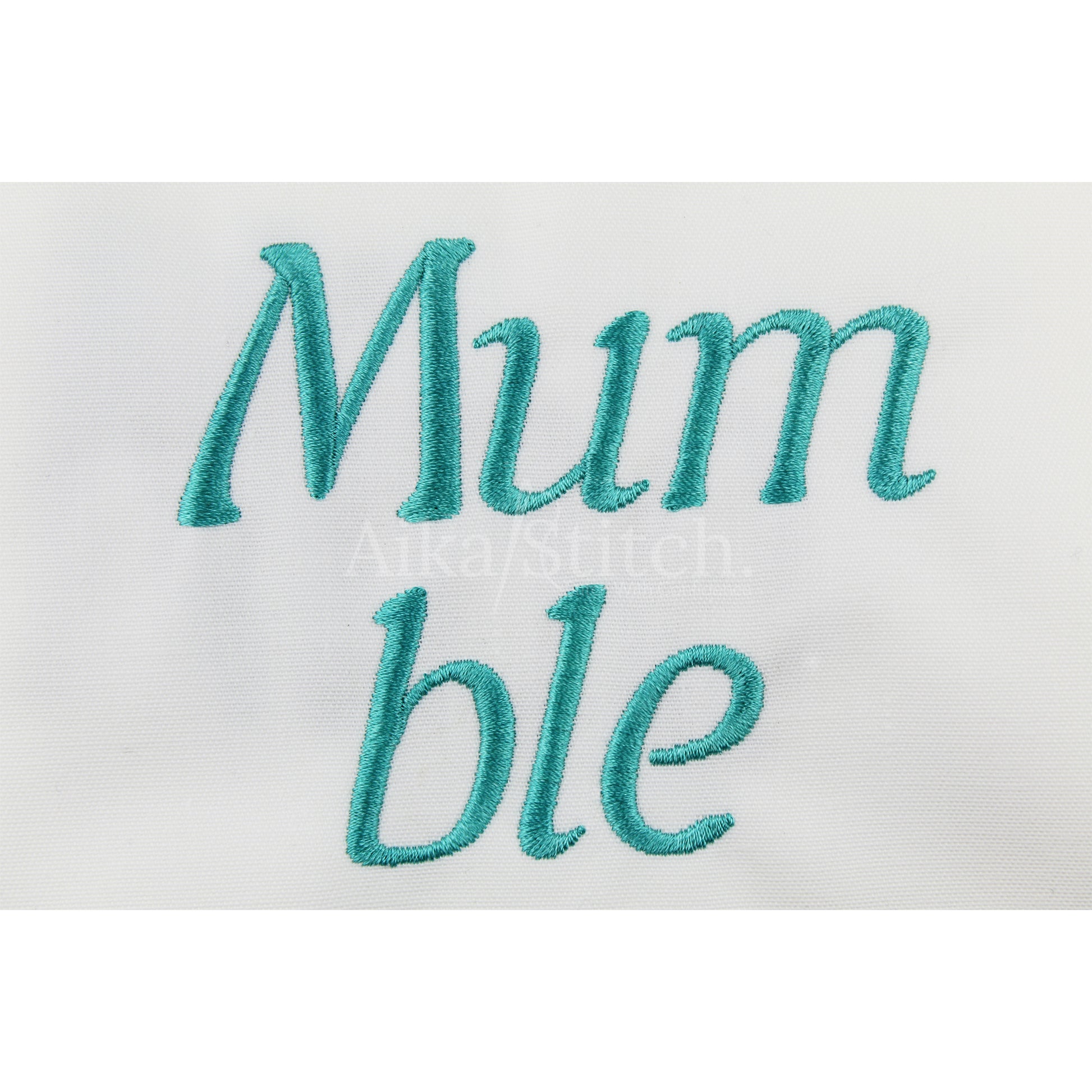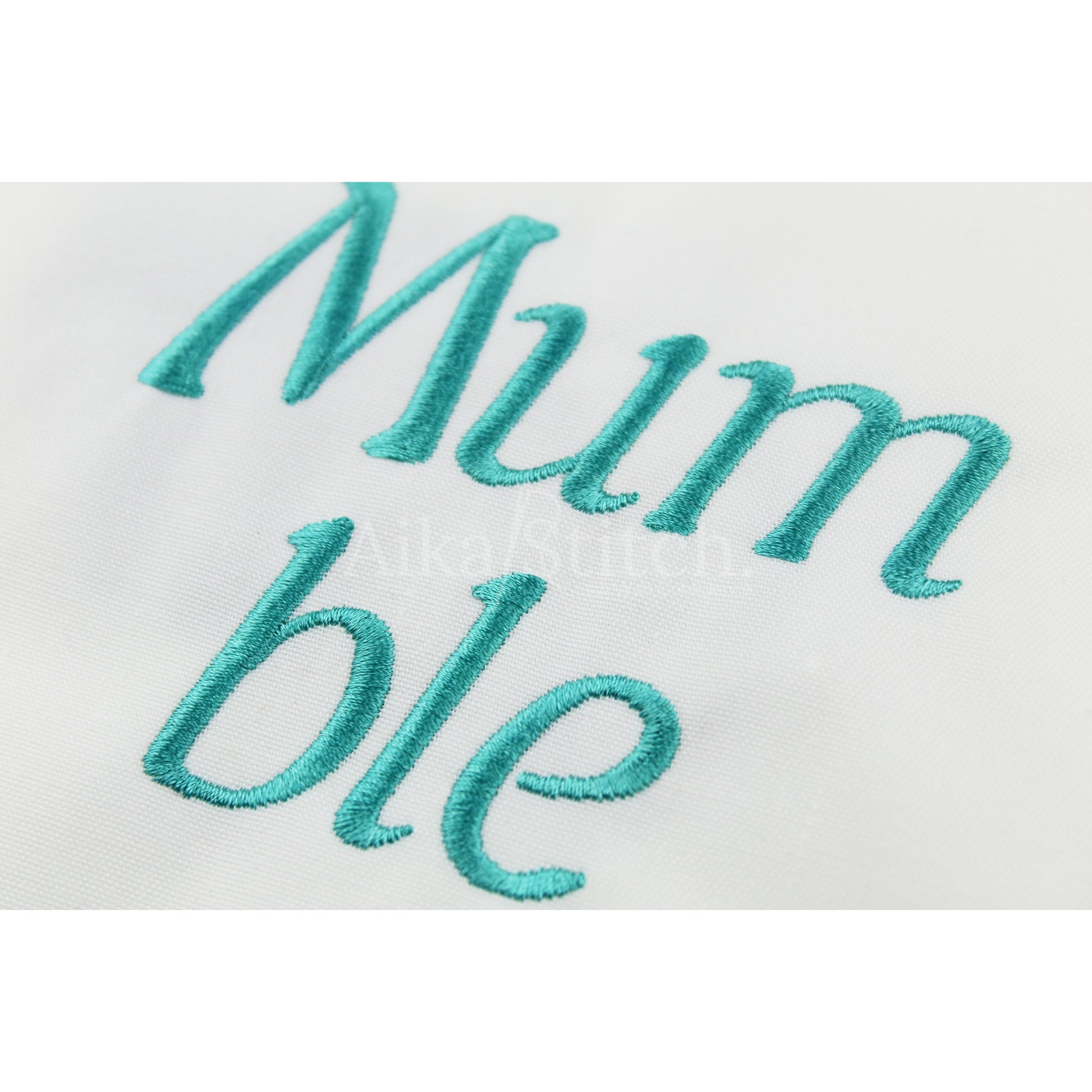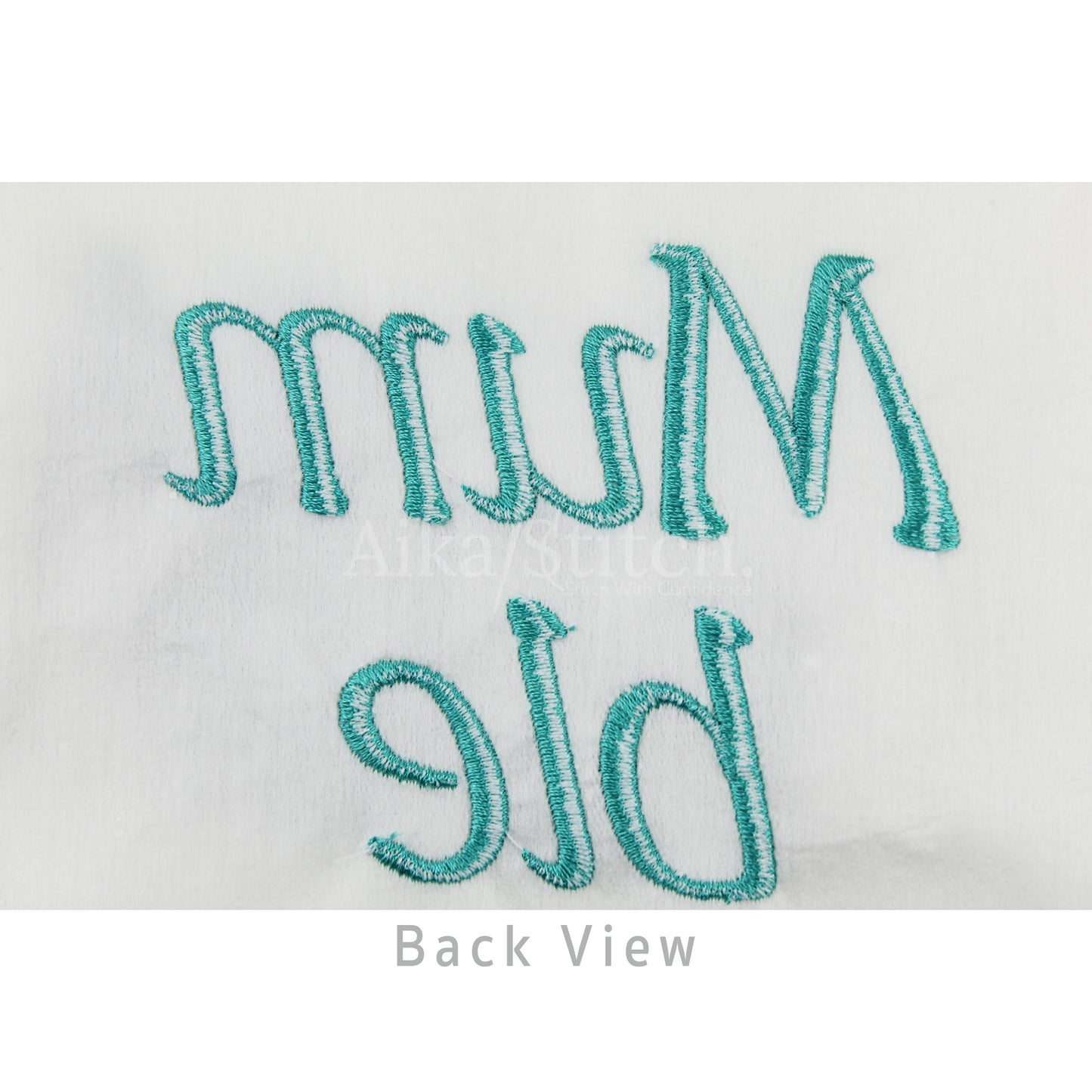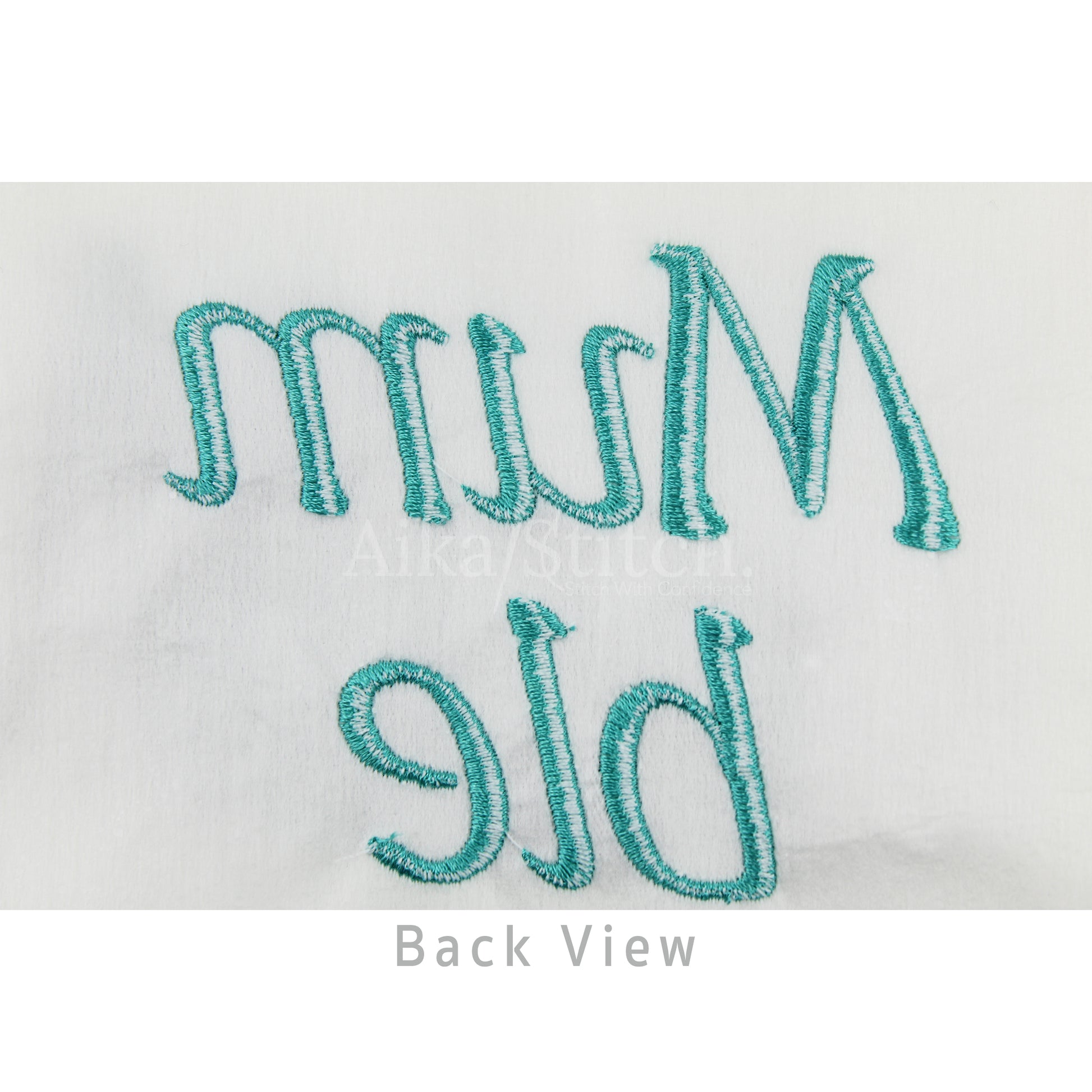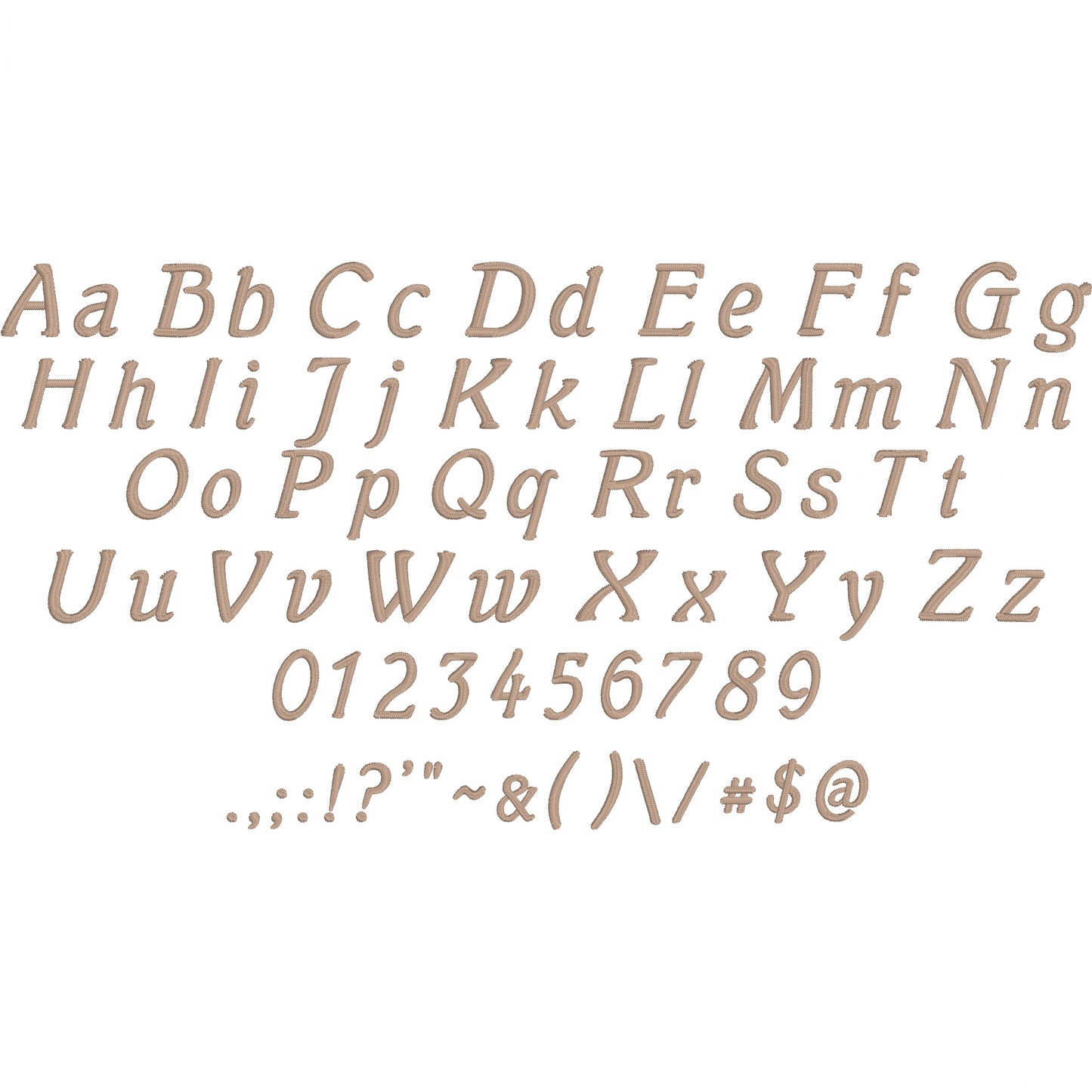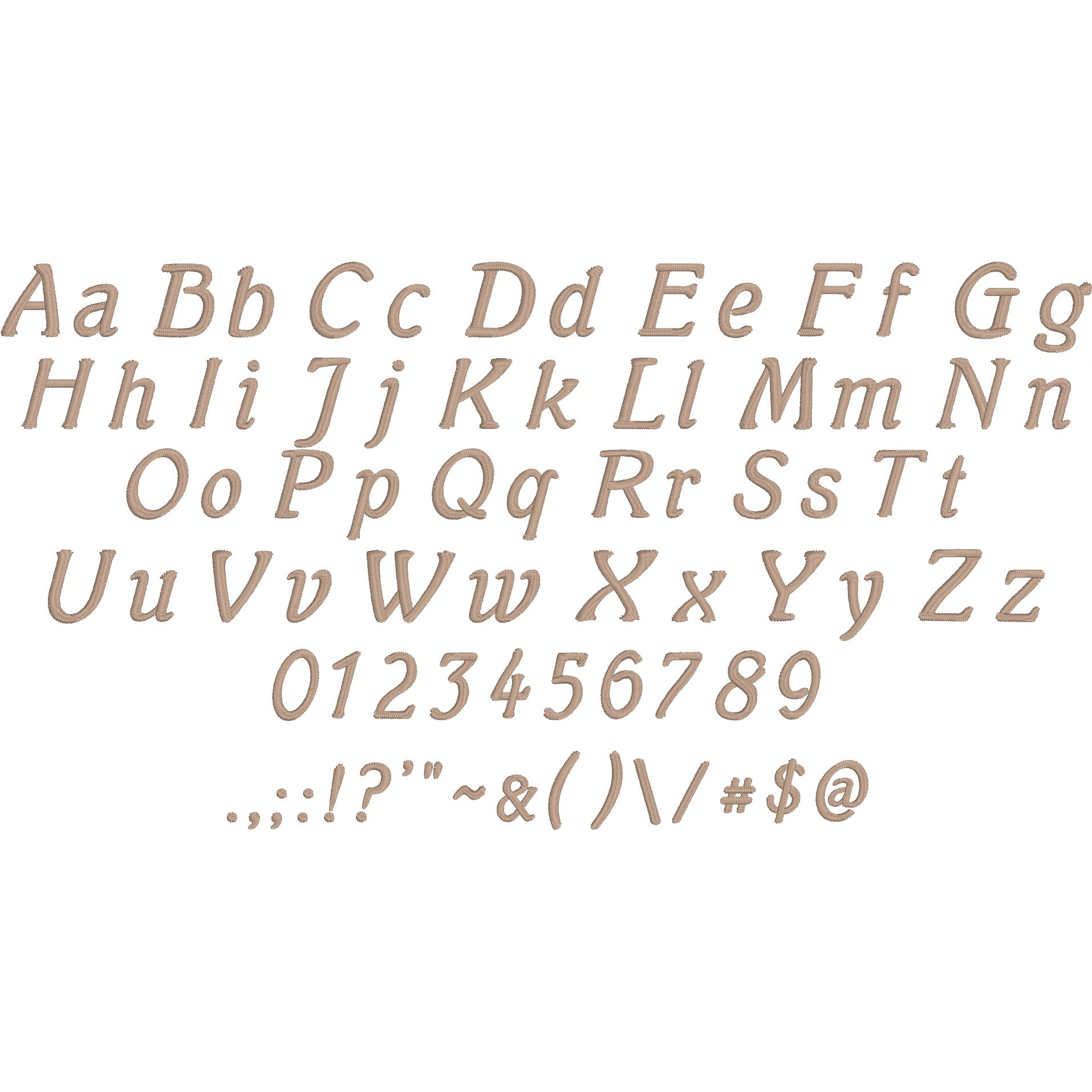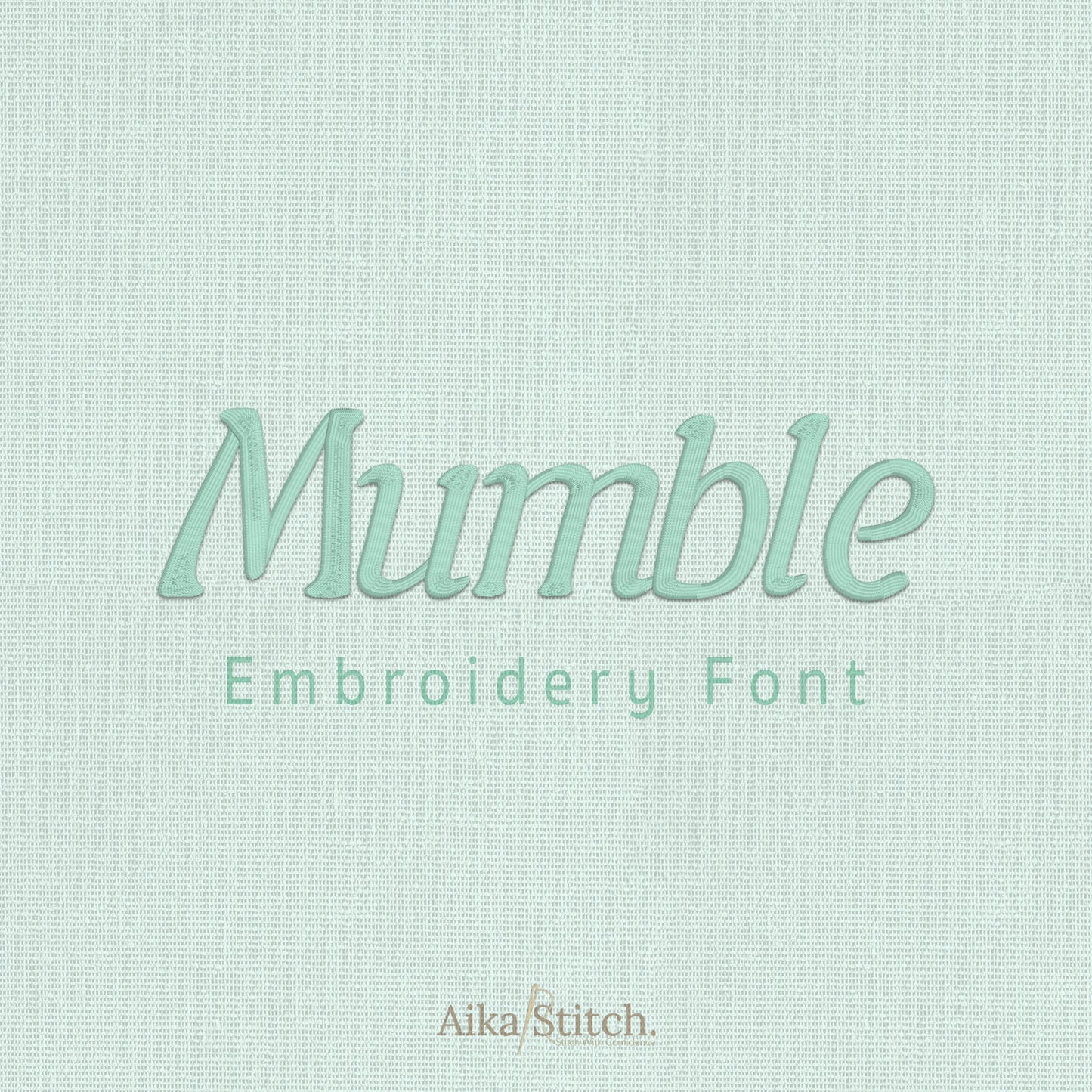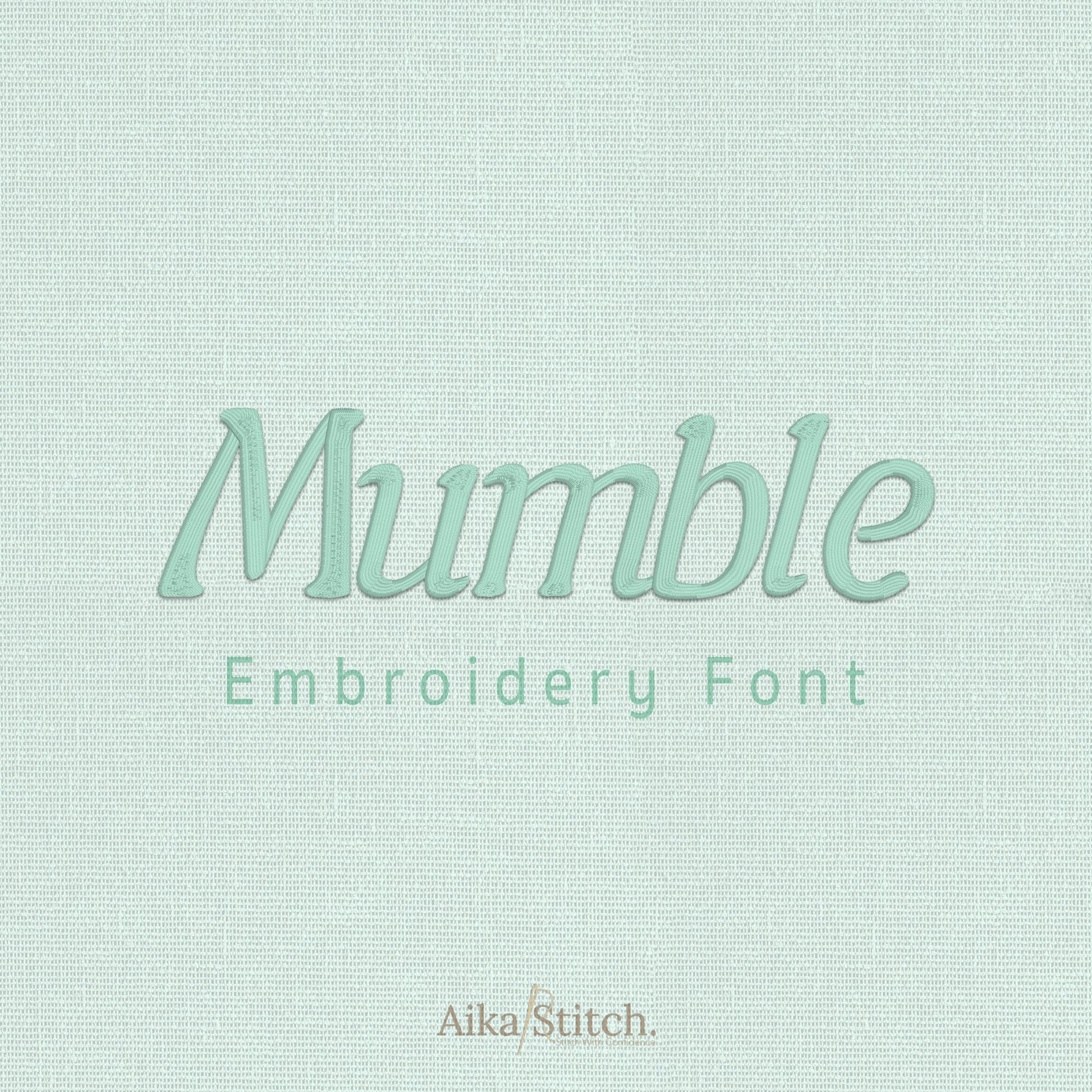
Mumble Modern Italic Embroidery Font
Mumble is a modern italic machine embroidery font featuring beautiful satin stitch lettering. Perfect for shirts, towels, hats, baby gifts, monograms, and small business embroidery projects.